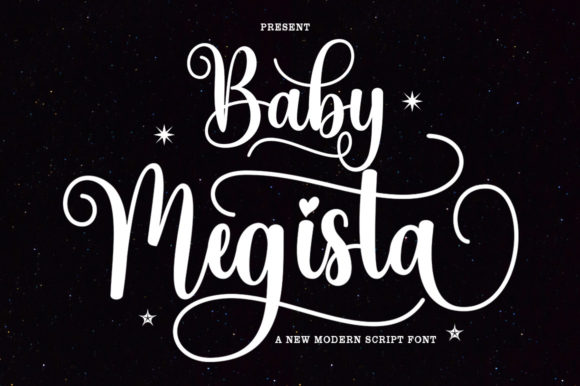
Embark on an extraordinary typographic journey with Baby Megista, a mesmerizing script font crafted with meticulous attention to detail and elegance. Designed by the talented IM Studio, this font is an exceptional asset for designers seeking to create captivating branding materials that resonate with audiences.
Baby Megista's graceful curves and enchanting swashes impart a touch of sophistication and charm to any design project. Its PUA encoding ensures effortless access to a treasure trove of glyphs and swashes, empowering you to unleash your creativity and craft truly remarkable designs.
Visualize your brand's logo, adorned with the exquisite Baby Megista font, exuding a timeless appeal that captivates your target audience. Imagine your website headlines and marketing materials, transformed with Baby Megista's enchanting allure, drawing visitors in and leaving a lasting impression.
With Baby Megista, you'll unlock a world of creative possibilities. Craft stunning wedding invitations and greeting cards that exude heartfelt emotions, design eye-catching social media graphics that amplify your brand's presence, or create enchanting posters and flyers that demand attention.
This versatile font effortlessly adapts to a myriad of design styles, effortlessly complementing both classic and contemporary aesthetics. Its delicate strokes and flowing lines harmonize seamlessly with various design elements, ensuring your creations radiate sophistication and charm.
Baby Megista is not just a font; it's an investment in your brand's visual identity. Embrace its captivating elegance and watch as your designs blossom into masterpieces that captivate and inspire. Don't let this opportunity pass you by; add Baby Megista to your font collection today and unlock a world of creative possibilities.